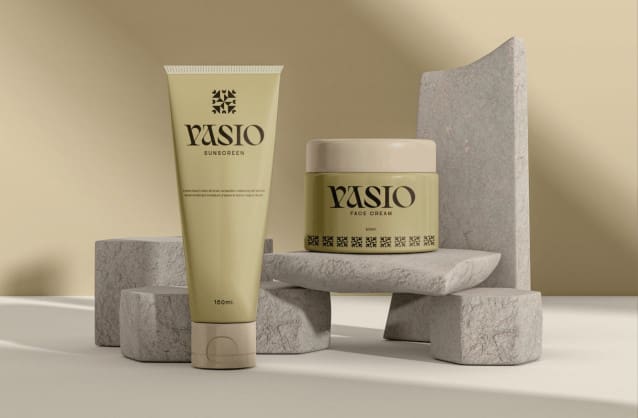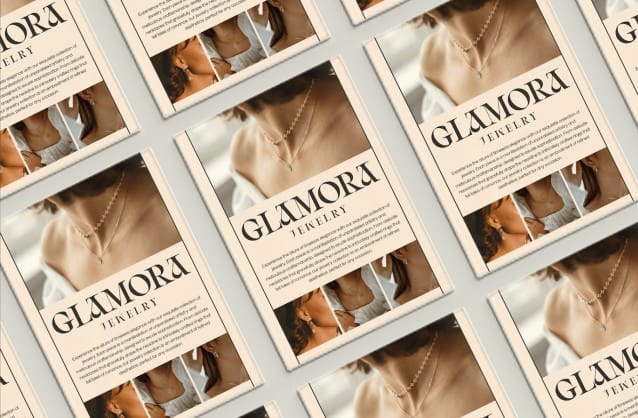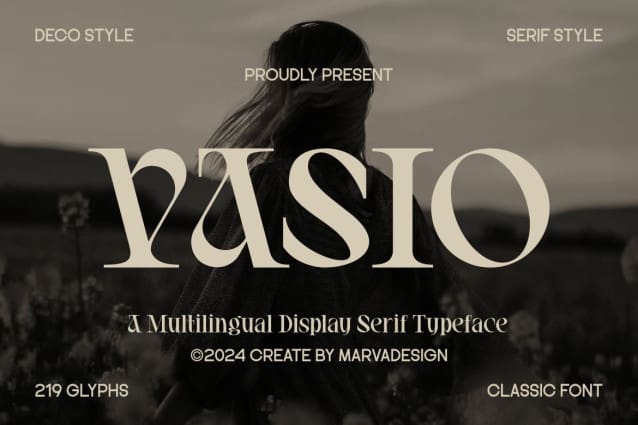
Vasio Font
Vasio Font – This font has an elegant Serif and decorative style, every distance in space is the same. This font is suitable for use for various products, such as skincare, cosmetics, logos, brands, magazines and posters. It is exceptional in a wide range of contexts.